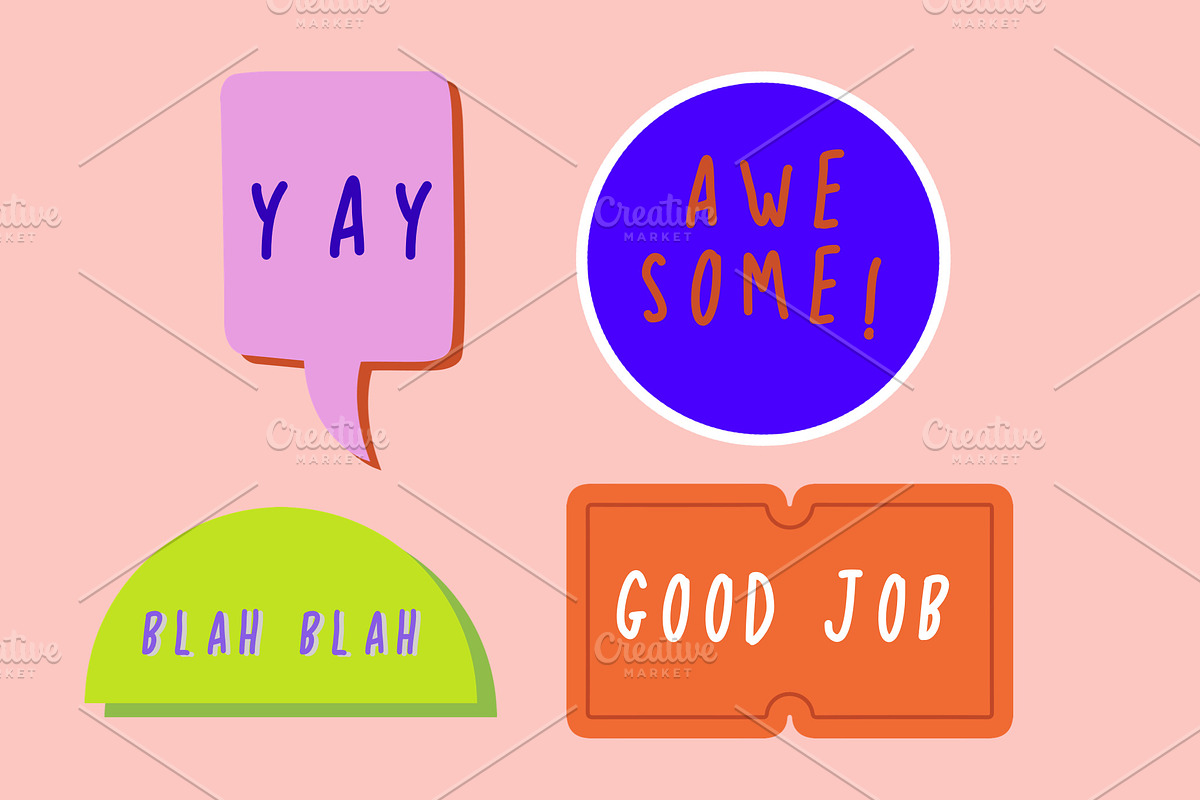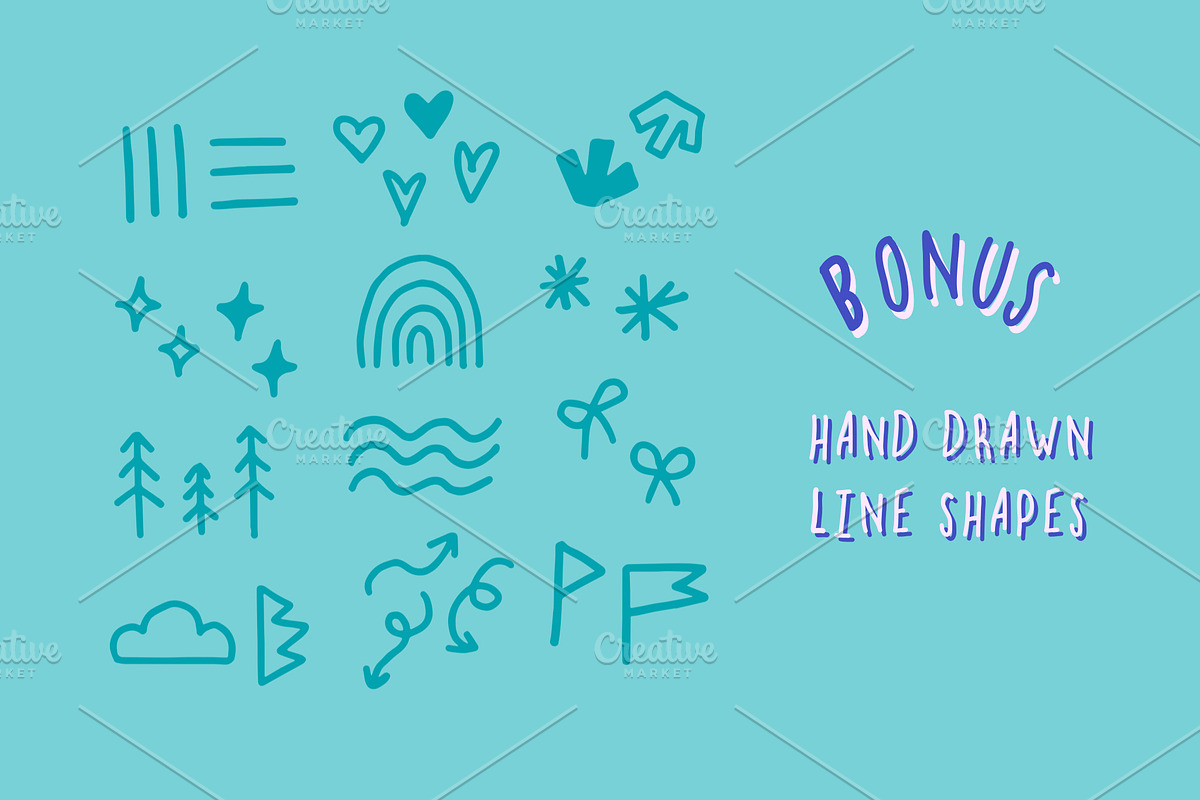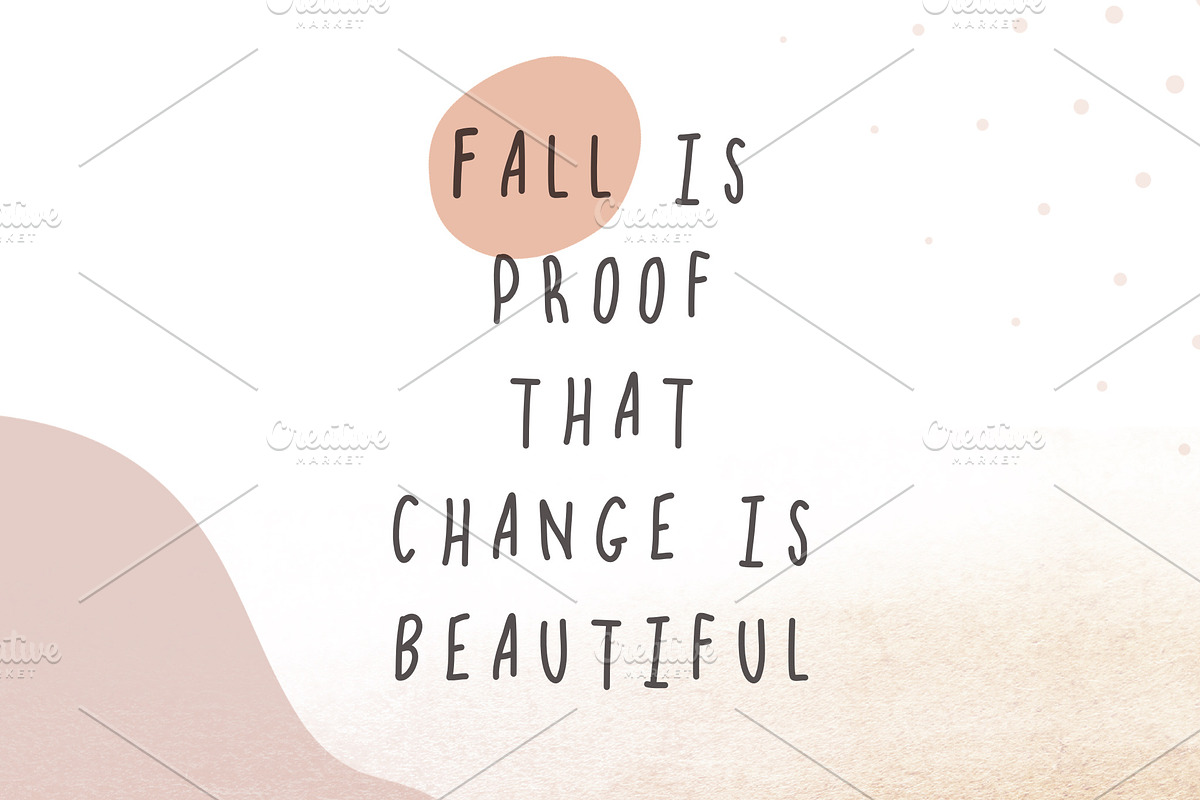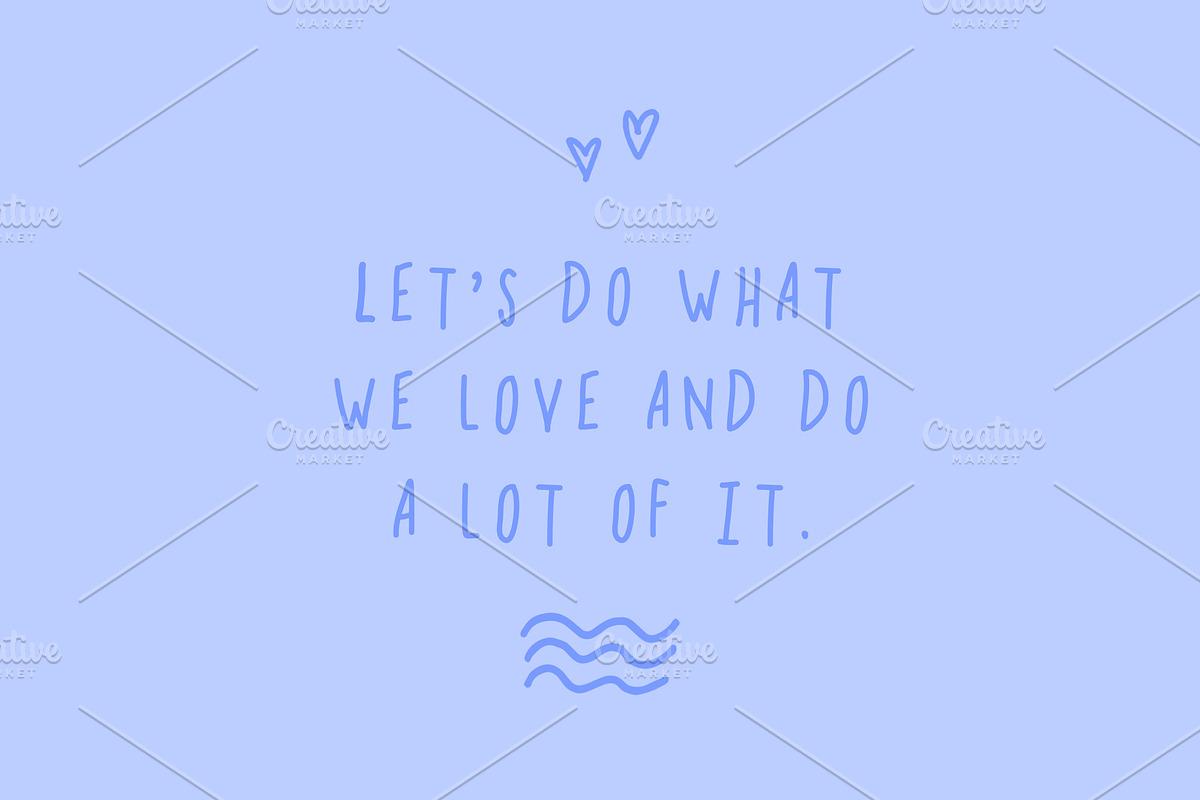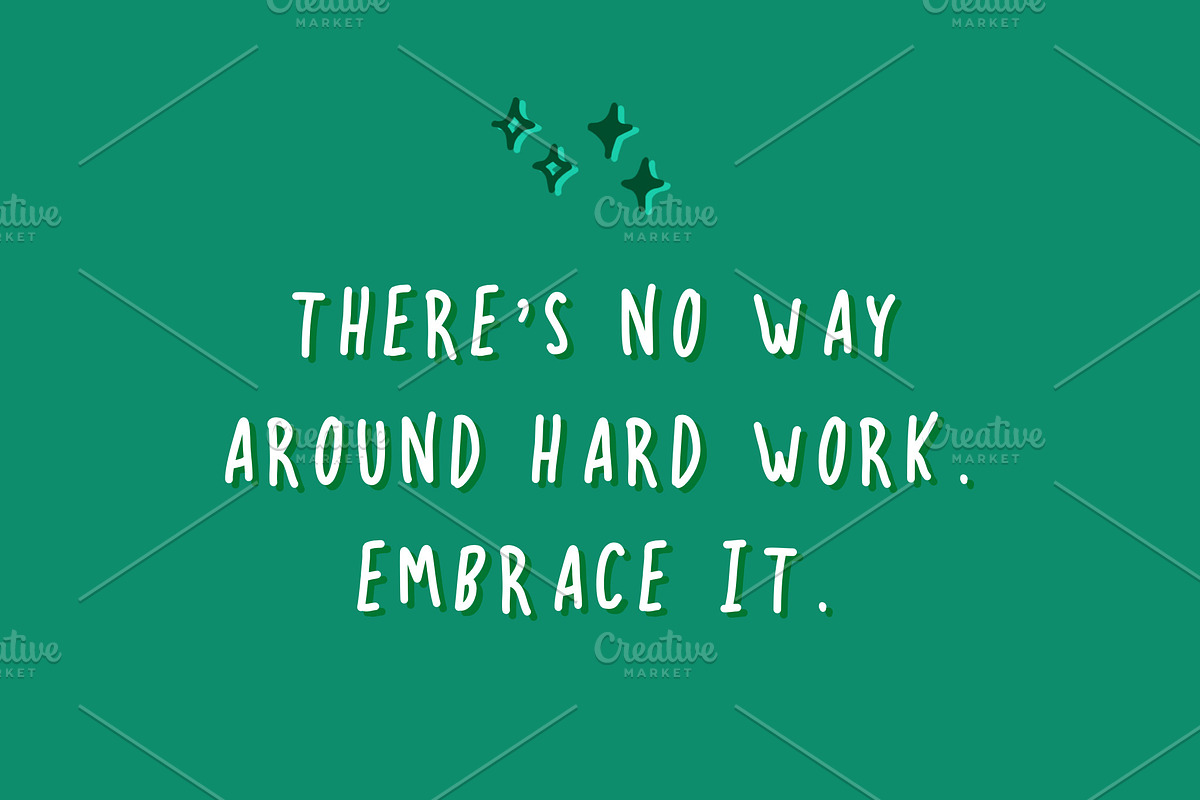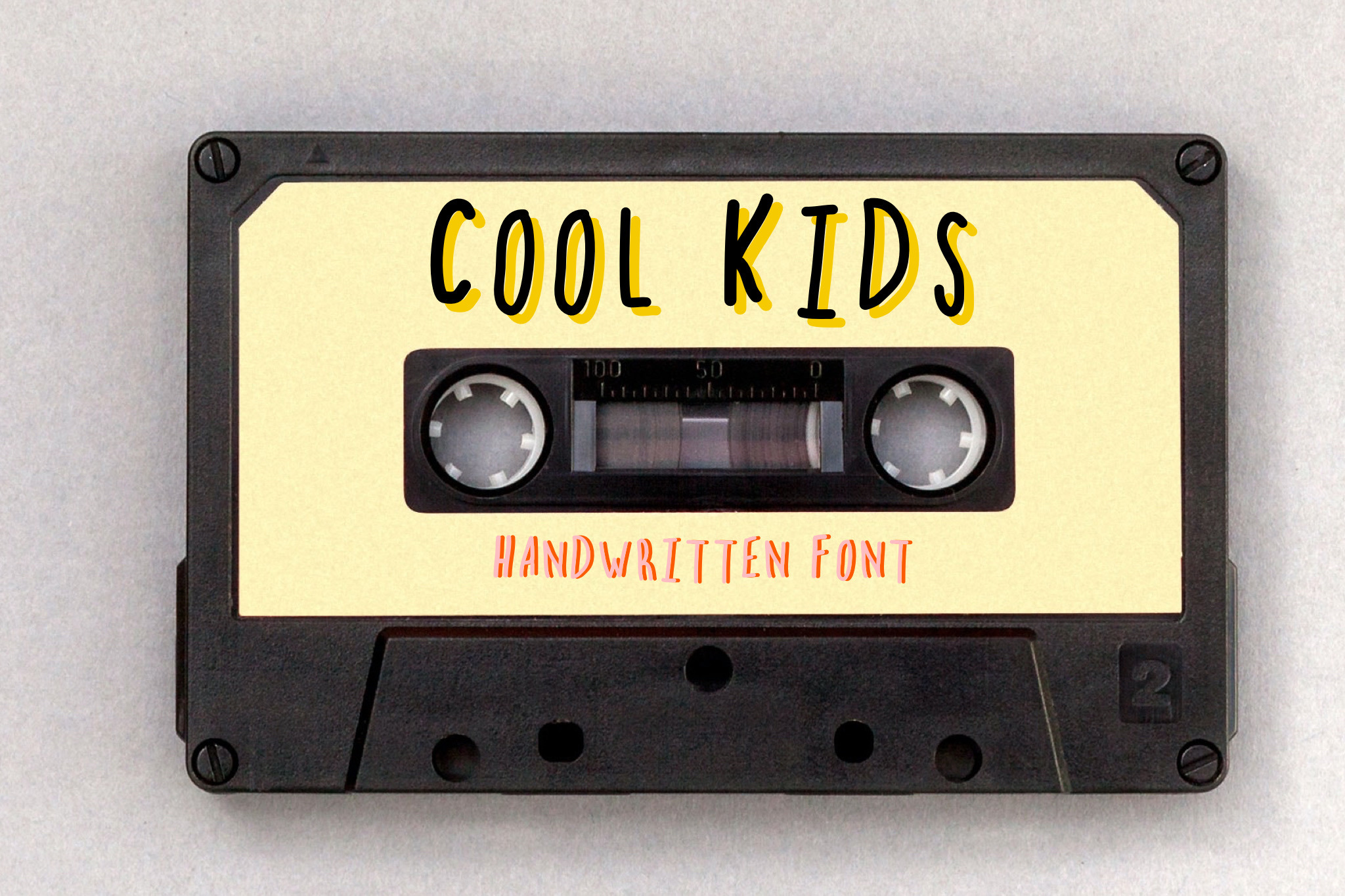
Cool Kids Font
Cool Kids is a playful and friendly handwritten font. Perfect for personal use, website, web header , banner, blog, craft projects, postcard, poster, invitations, labels, social media, Template design and many more.
- Bonus hand drawn line shapes